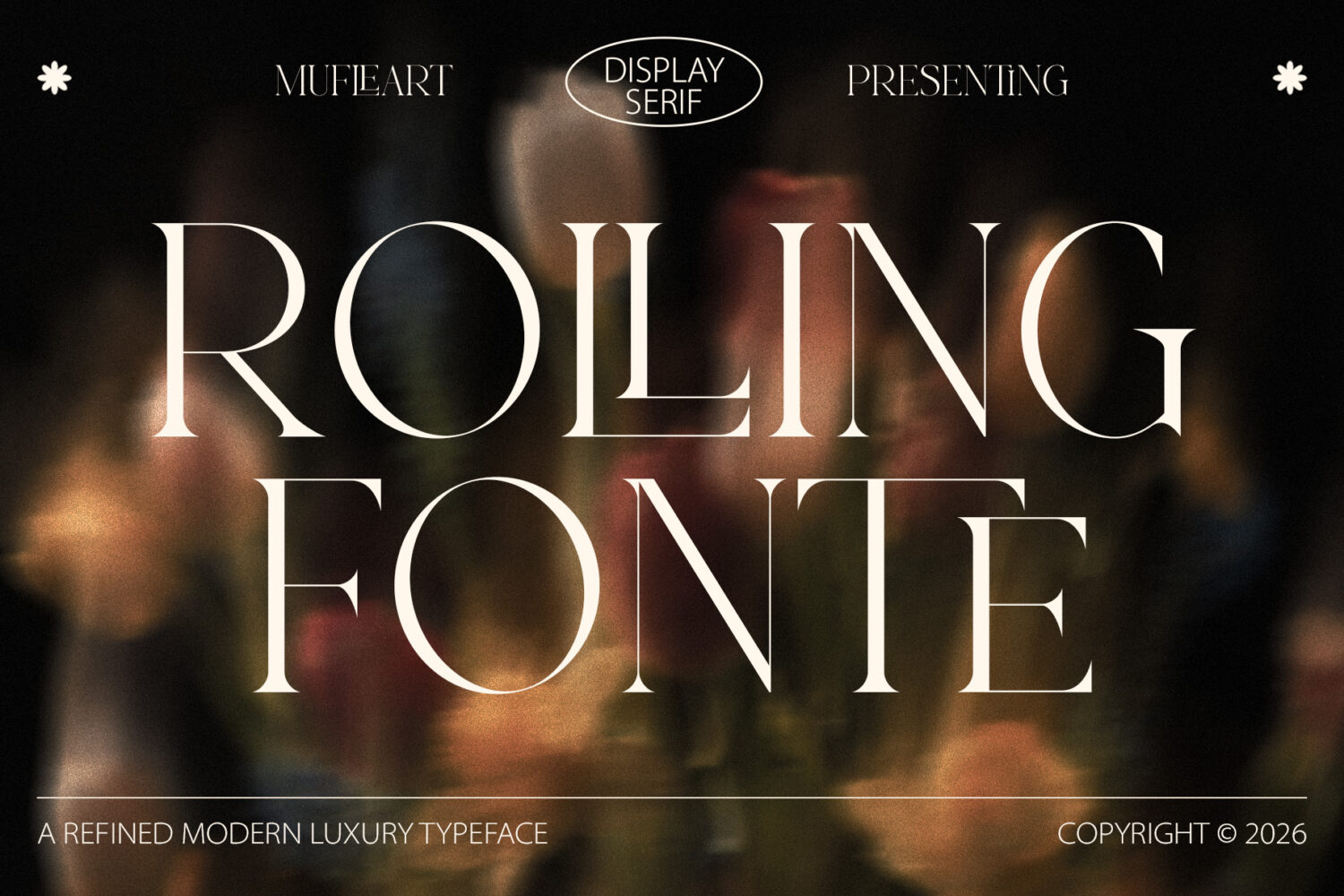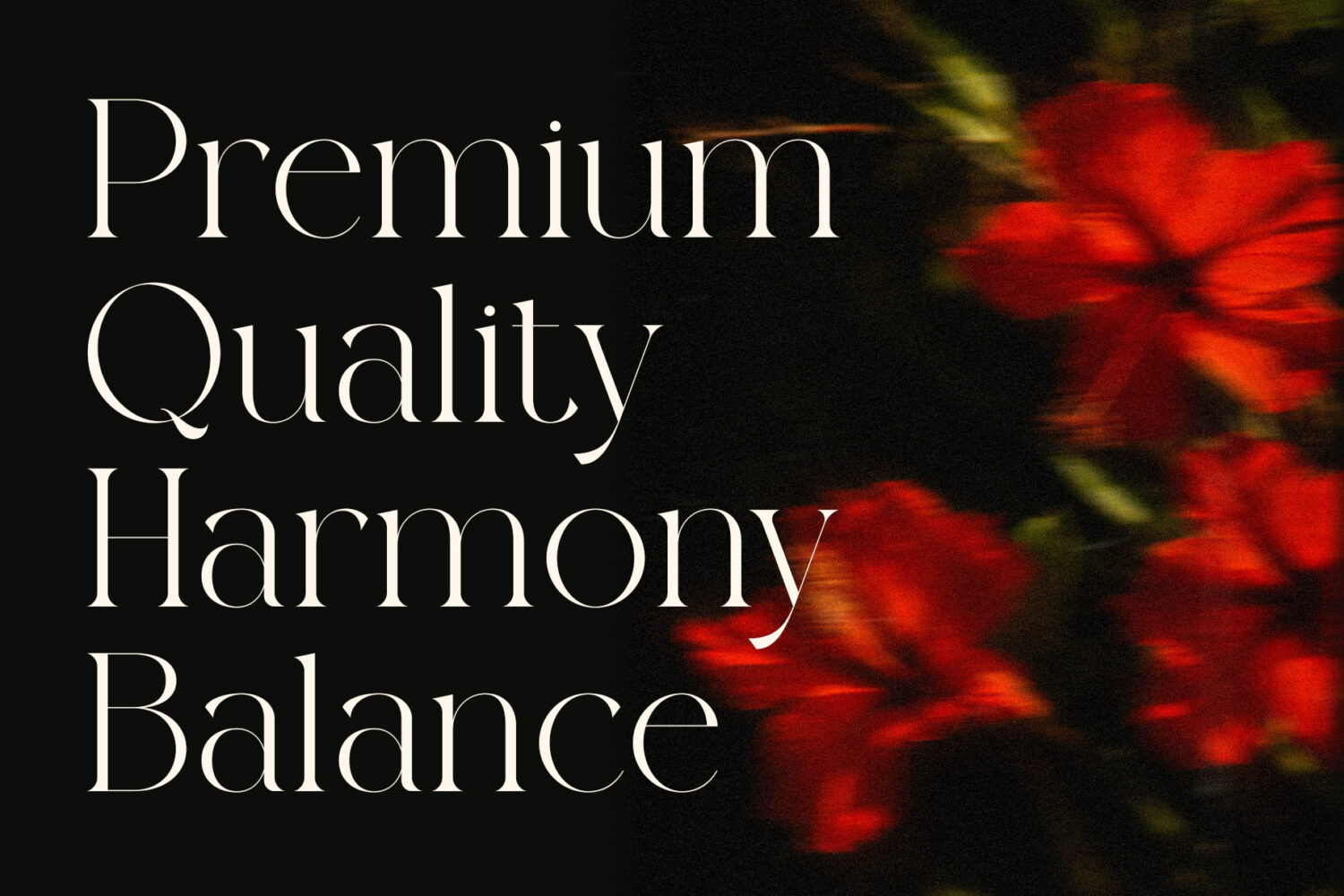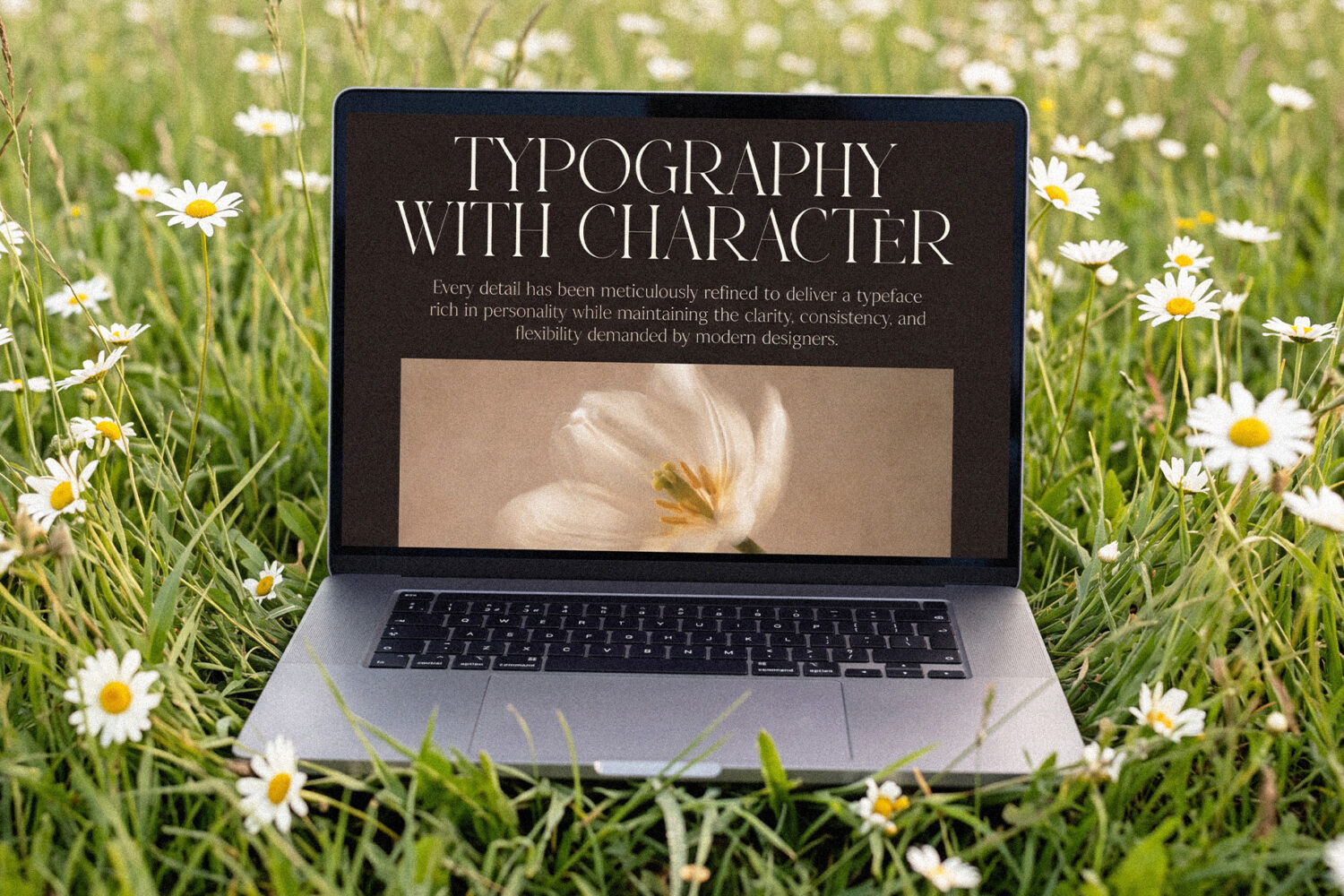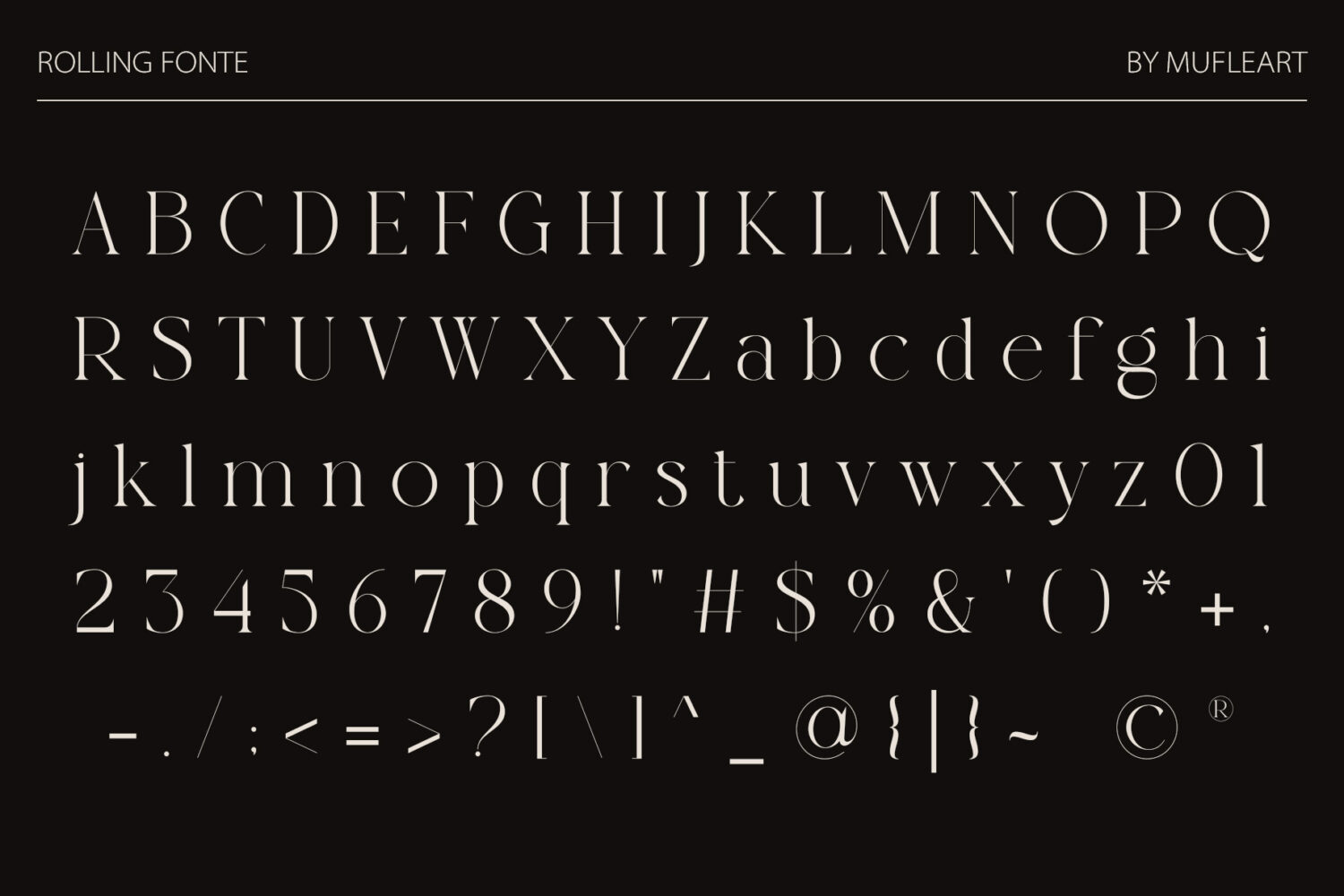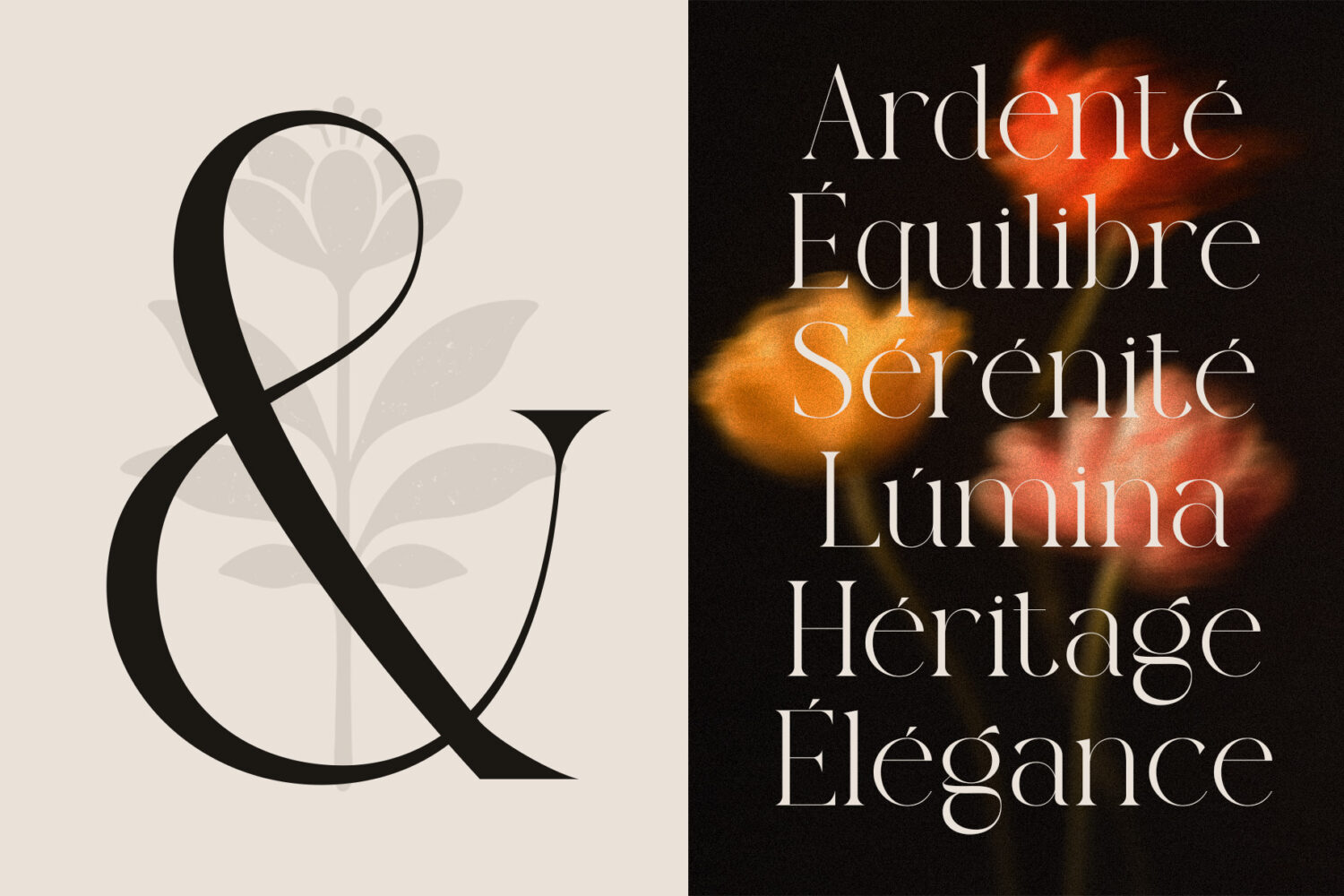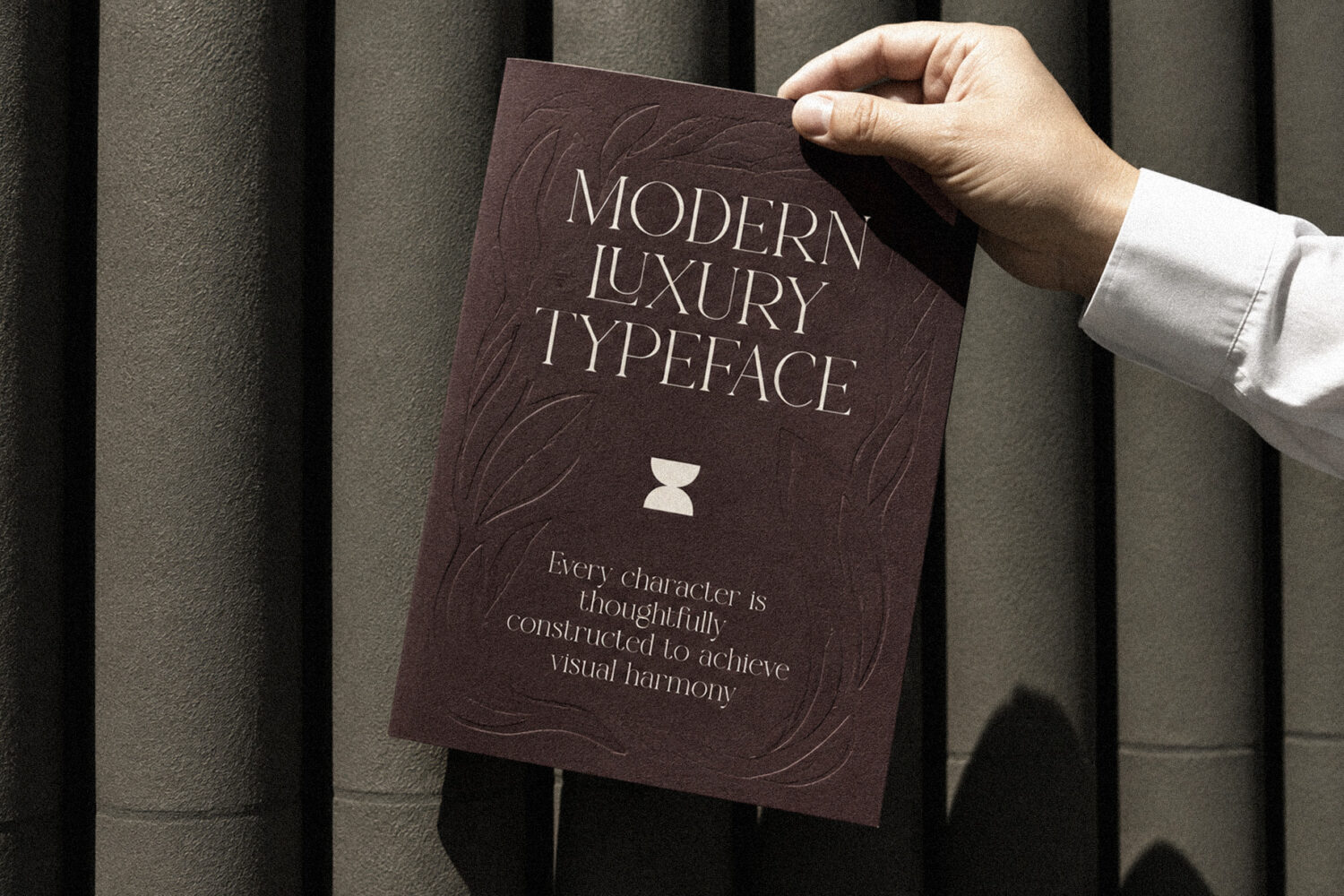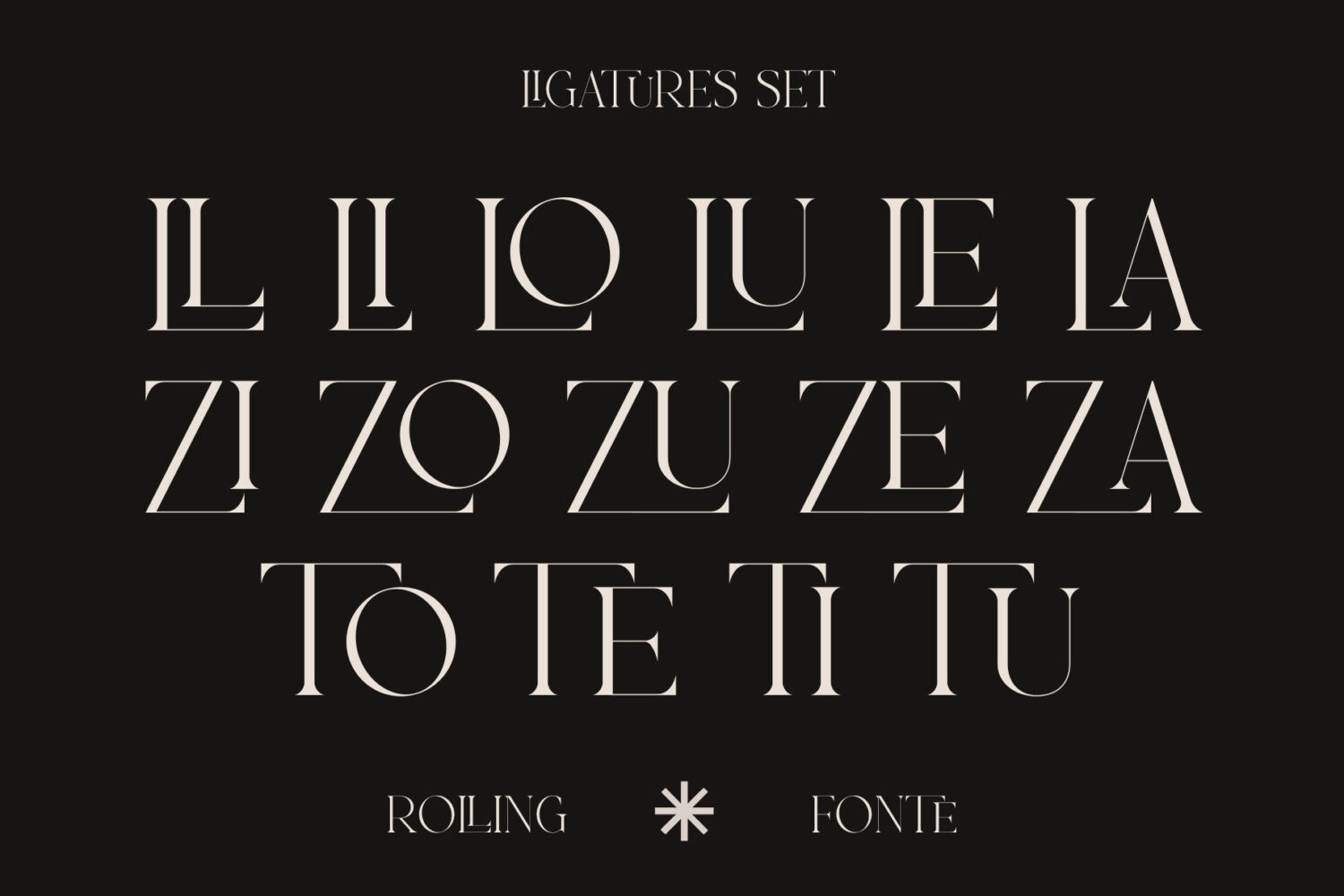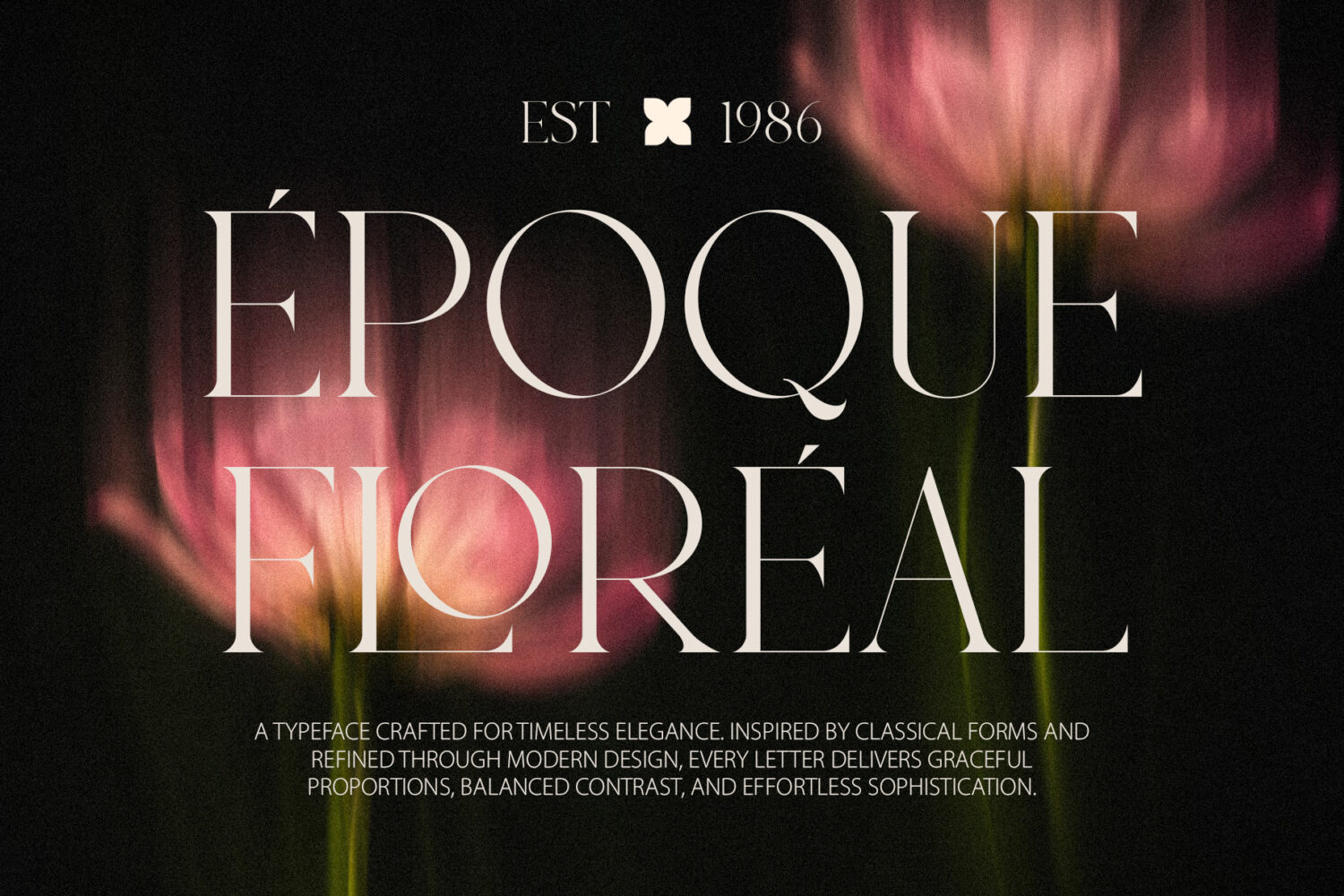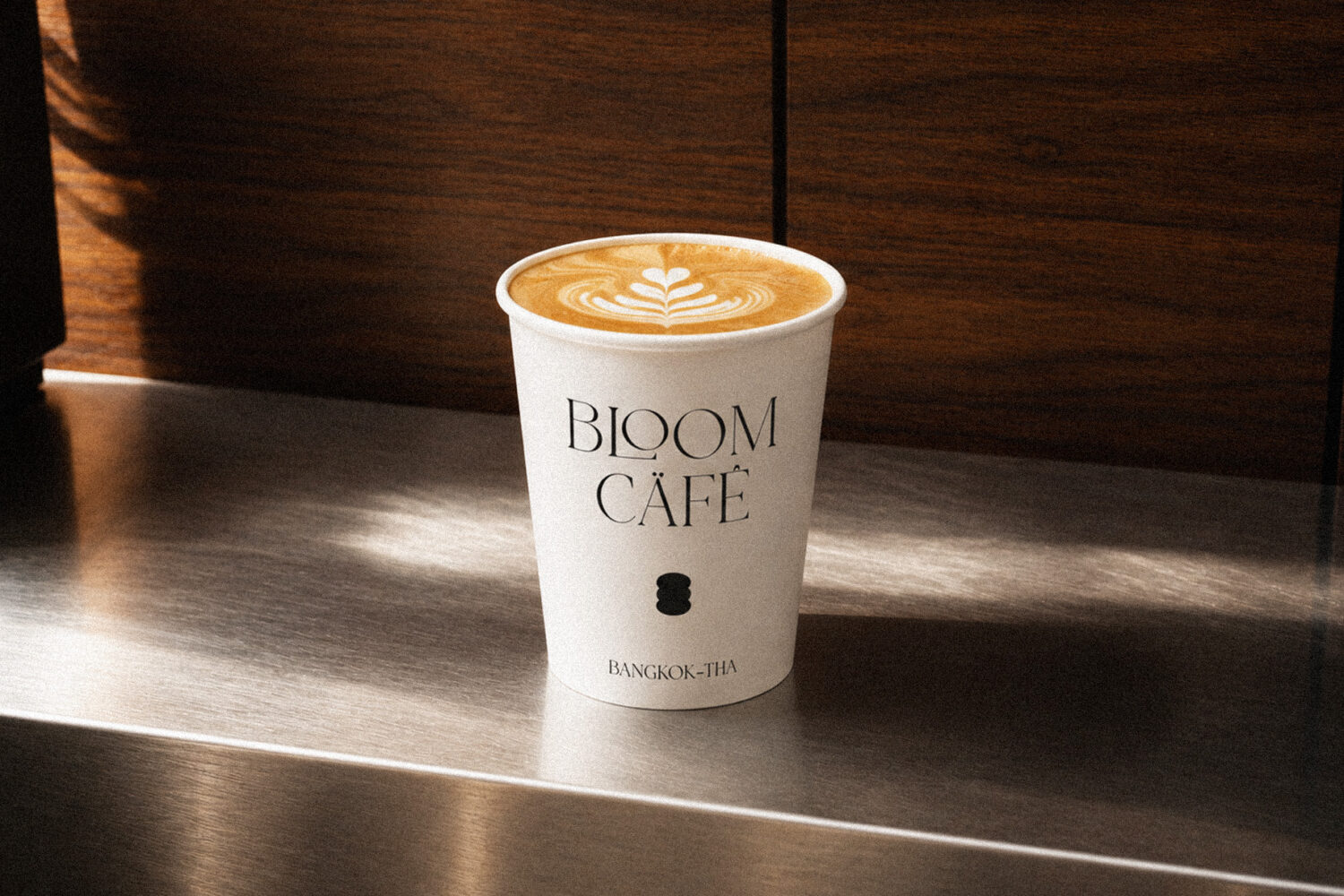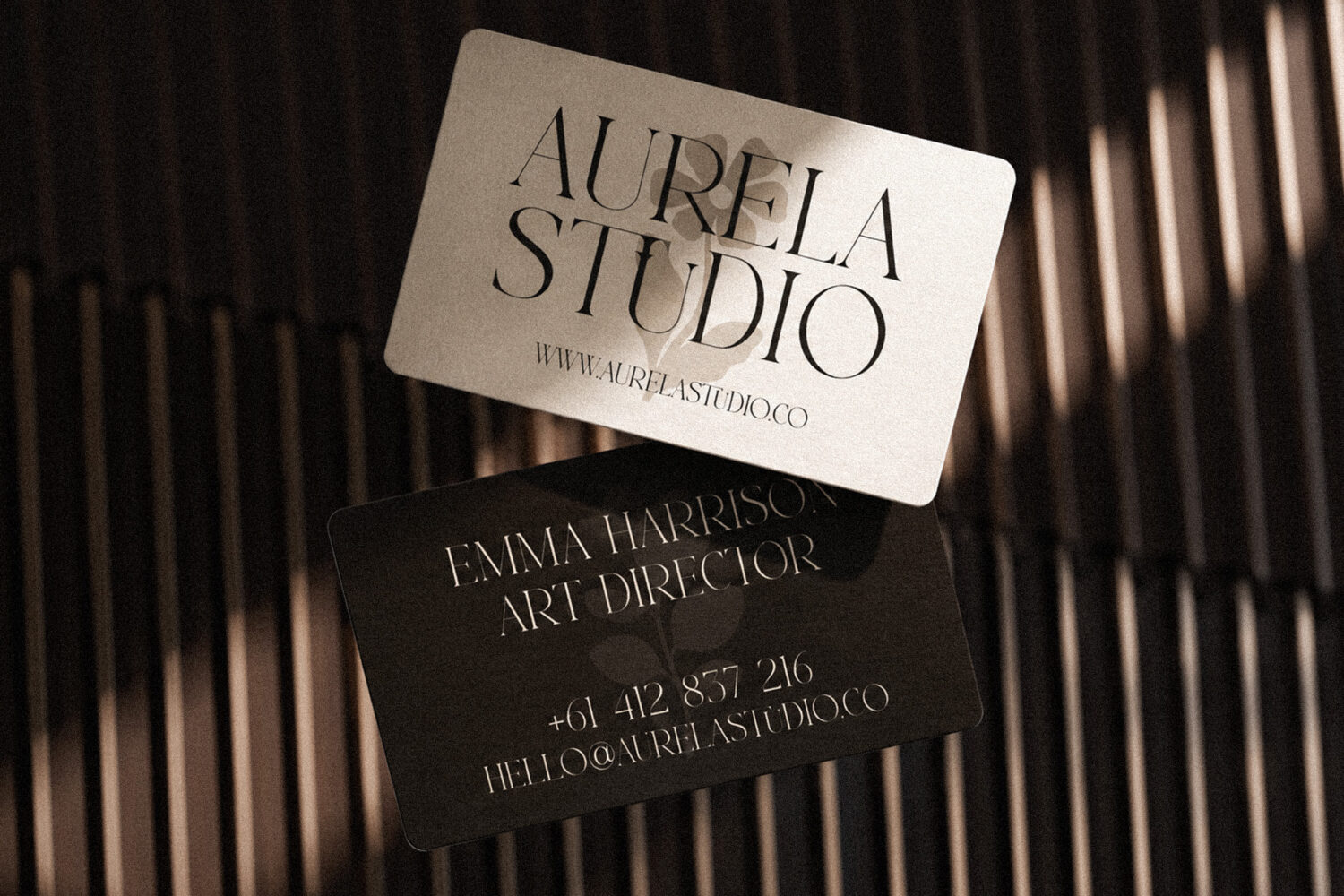
Rolling Fonte
Introducing **Rolling Fonte** the elegant, beautiful, and modern Serif. With its modern and minimalist look, Rolling Fonte brings a luxurious, classy, ​​and clean style to your projects such as websites, modern logos, brand identities, social media quotes, wedding stationery, magazines, and more!
Rolling Fonte features unique and classy capital letters A to Z and also comes with unique ligatures making Rolling Fonte a beautiful font that can be customized for various projects and jobs you want.
Rolling Fonte is perfect for: logos, brands, wedding invitations, business cards, greeting cards, posters, magazines, social media, agenda prints, and websites.
– ligatures
Rolling Fonte – Modern Luxury Typeface